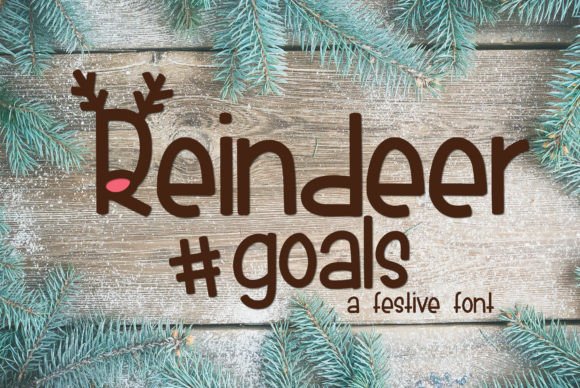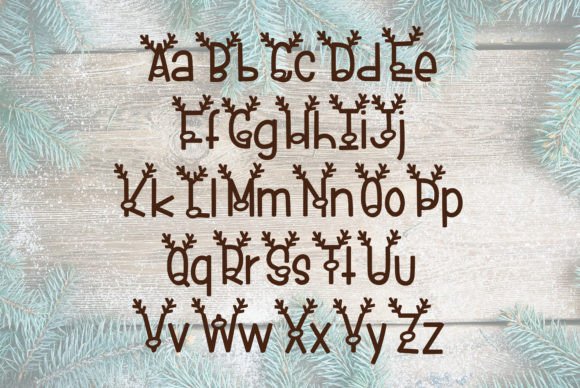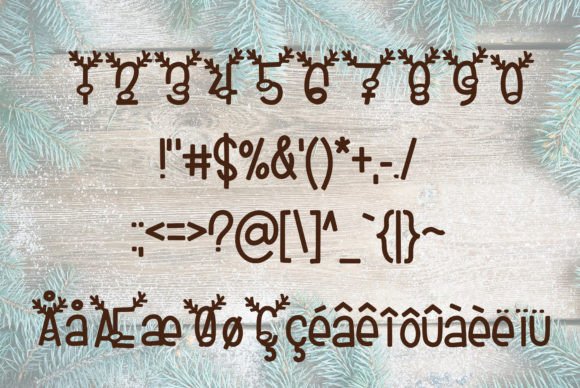
Reindeer Goals Font
About the Reindeer Goals Font
We are excited to introduce Reindeer Goals Font, a must-have typeface for any serious designer. “Reindeer Goals” is a playful and festive font perfect for the holiday season. This whimsical typeface features reindeer antlers and noses incorporated into the design of each letter, giving it a fun, wintery feel. Ideal for Christmas cards, holiday party invitations, festive decor, or seasonal branding, this font will add charm and cheer to any project. Bring the spirit of the holidays to life with “Reindeer Goals!”
Its playful design makes it particularly well-suited for headlines, short text blocks on packaging, festive posters, and social media graphics. However, the whimsical nature of the antlers and noses would hinder readability in body text or long paragraphs, or in applications requiring clean, minimalist UI.
“Reindeer Goals” possesses a lighthearted, friendly personality. To balance its playful energy, consider pairing it with a clean sans-serif like Open Sans for body copy, or a more elegant serif like Playfair Display for a sophisticated contrast in projects requiring both playful and formal elements.
For a more whimsical design, a script font such as Great Vibes could be used to amplify the festive spirit. Avoid pairing it with overly geometric or serious typefaces, as this might clash with its inherent charm.
Reindeer Goals Font Usage Examples
Reindeer Goals Font Example